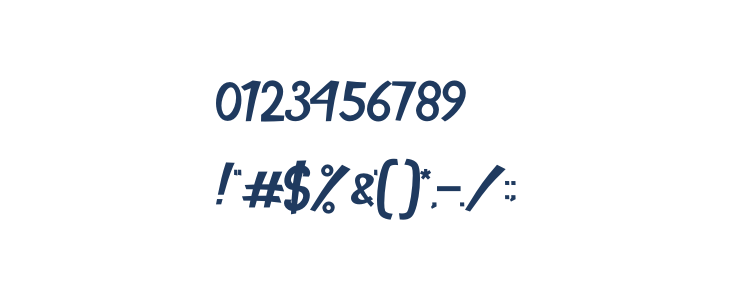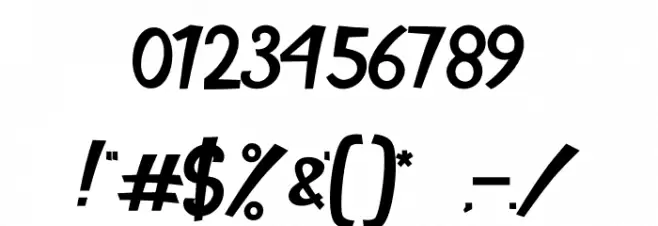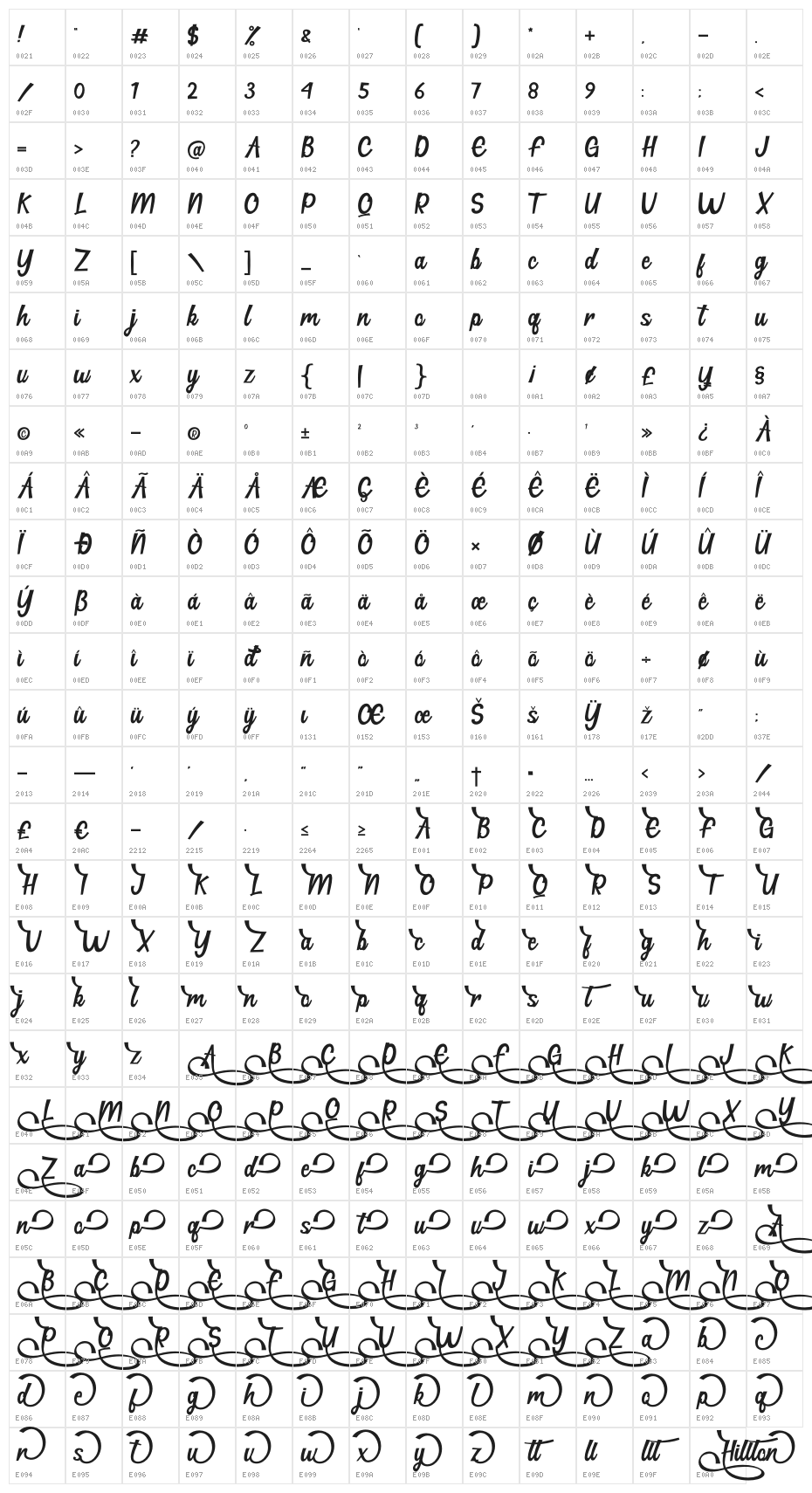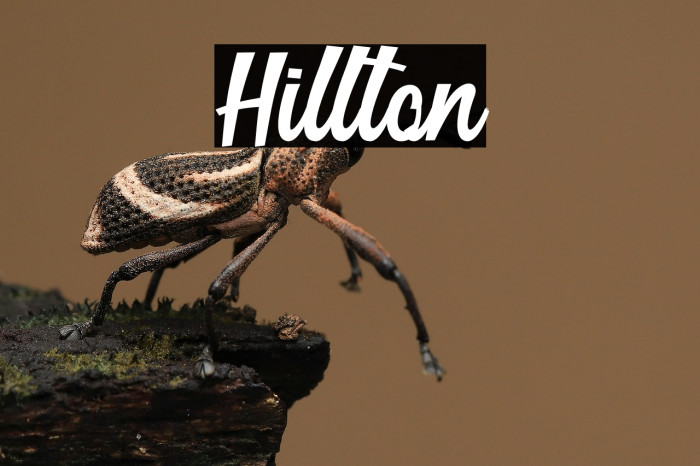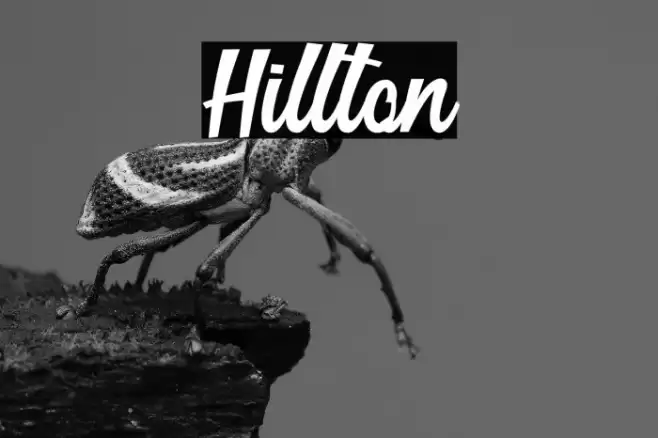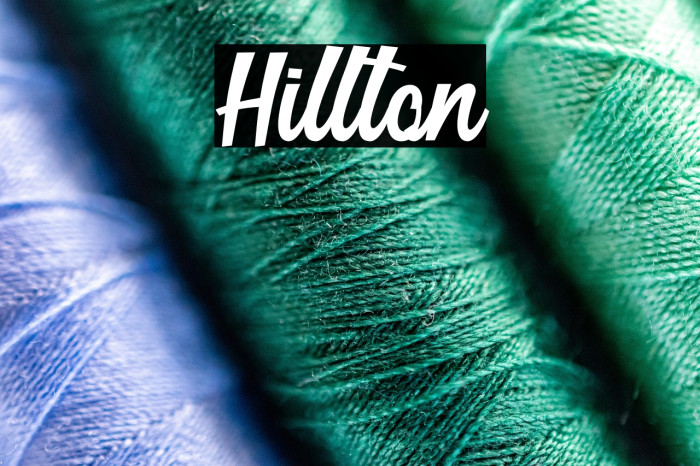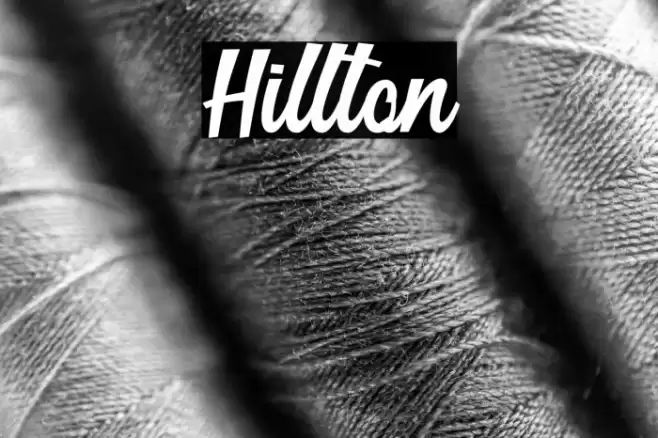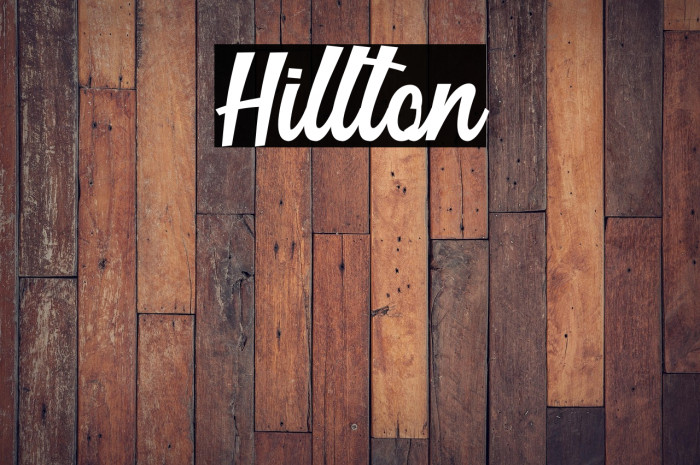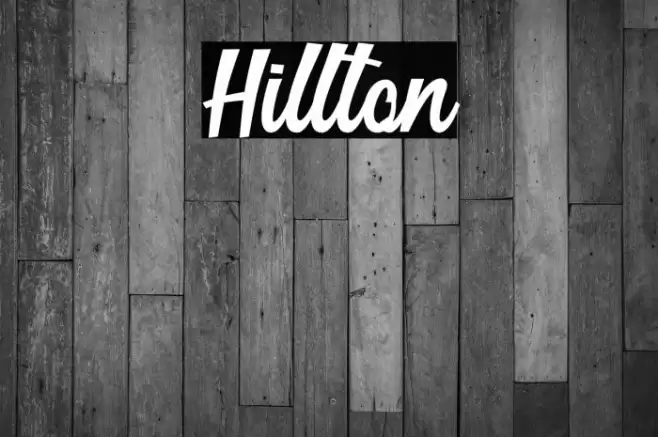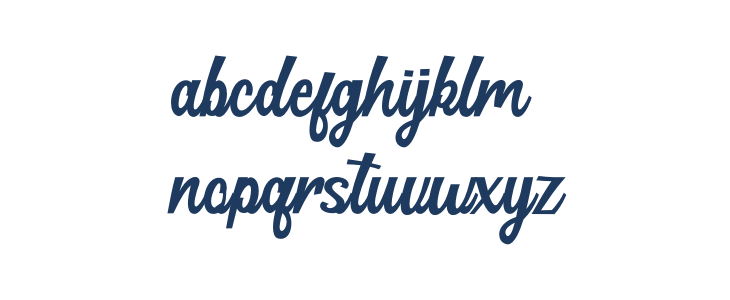
Hillton Font
Hillton Description
This font exhibits a dynamic and energetic style, characterized by its bold and italicized letterforms. The uppercase letters are slightly slanted, giving a sense of movement and fluidity, while the lowercase letters maintain a consistent flow with a touch of elegance. The numerals are clear and bold, ensuring readability. Special characters are well-integrated, maintaining the overall aesthetic. The font's design is suitable for creating impactful and eye-catching text, making it ideal for various creative applications.
| Proposed Projects | Ideal for branding, posters, and headlines that require a bold and energetic look. |